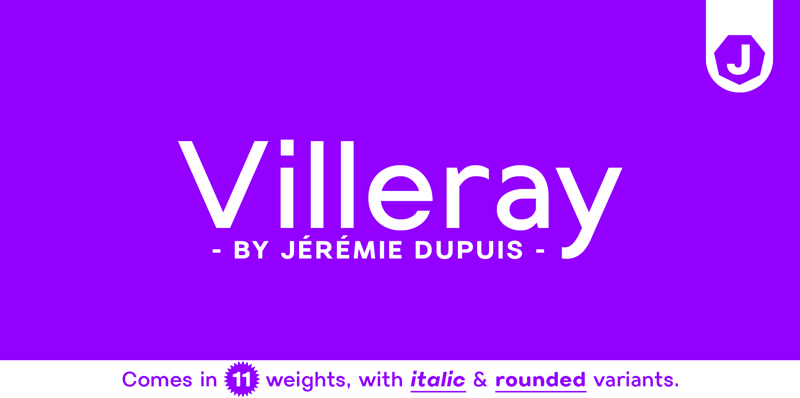
Villeray is a sans-serif designed for maximum versatility. With 11 weights, plus an italic and a charming rounded edition, you can achieve many different styles. Villeray also comes with many different alternates, most of them in stylistic sets, so that if you don’t like a particular character, you can replace it with an alternate. Learn more on my website: http://www.jeremiedupuis.com/fonts/Villeray |